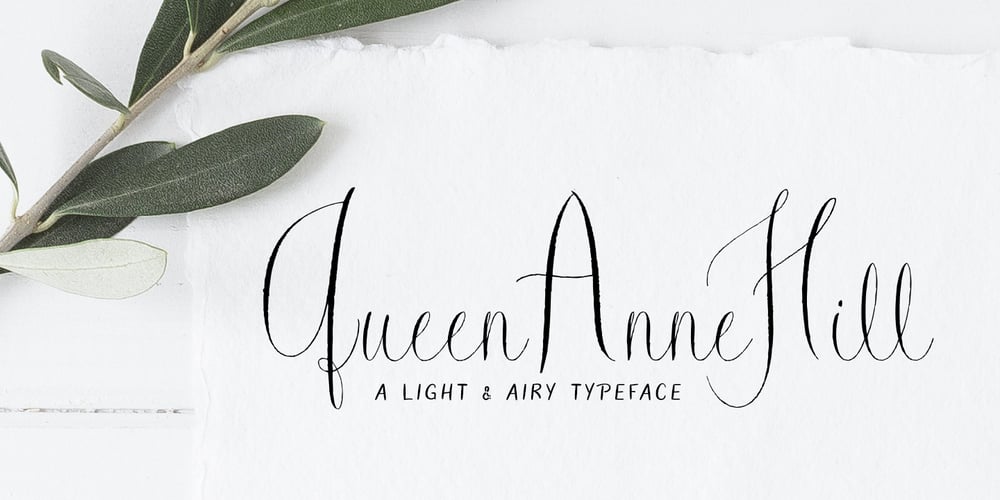
Queen Anne Hill Font Family was designed by Dathan Boardman, Alissa Mazzenga and published by Great Lakes Lettering. Queen Anne Hill contains 1 styles and family package options. Queen Anne Hill is an modern Calligraphy style font with upright strokes and bold flourishes. Revealing the styling of fine artist and calligrapher Alissa Mazzenga, this font communicates refinement with a hint of playful artistic individualism.